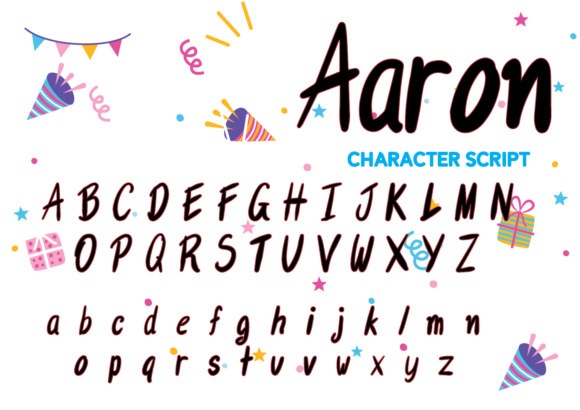
Aaron Font: Elevate Your Designs with Elegance and Charm
Are you looking for a font that exudes sophistication and style? Look no further than the Aaron Font, a stunning script font that is sure to elevate your designs to the highest level. With its classic calligraphy-inspired aesthetic, this font is perfect for designers and crafters who want to add a touch of elegance and charm to their projects.
A Font that Feels Equally Charming and Elegant
The Aaron Font is designed to feel equally charming and elegant, making it perfect for a wide range of design projects. Whether you’re working on branding, headings, wedding designs, invitations, signatures, logos, labels, or more, this font is sure to make a lasting impression. Its unique blend of classic and modern elements gives it a timeless feel that will never go out of style.
A Stylish Homage to Classic Calligraphy
The Aaron Font is a stylish homage to classic calligraphy, featuring a varying baseline, smooth lines, gorgeous glyphs, and stunning alternates. Its classic calligraphy-inspired aesthetic is perfect for designers who want to add a touch of sophistication and elegance to their designs. With its beautiful letterforms and flowing lines, this font is sure to add a touch of luxury to any project.
Key Features of the Aaron Font
The Aaron Font comes with a range of key features that make it perfect for designers and crafters. Some of its key features include:
- Varying Baseline: The Aaron Font features a varying baseline, which gives it a unique and organic feel.
- Smooth Lines: The font features smooth lines that are perfect for creating elegant and sophisticated designs.
- Gorgeous Glyphs: The font comes with a range of gorgeous glyphs that can be used to add a touch of elegance and charm to your designs.
- Stunning Alternates: The font features stunning alternates that can be used to add variety and interest to your designs.
Uses for the Aaron Font
The Aaron Font is perfect for a wide range of design projects, including:
- Branding: Use the Aaron Font to create elegant and sophisticated branding materials, such as logos and letterheads.
- Headings: The font is perfect for creating headings and titles that are sure to grab attention.
- Wedding Designs: The Aaron Font is perfect for creating beautiful wedding designs, such as invitations, programs, and place cards.
- Invitations: Use the font to create elegant and sophisticated invitations for any occasion.
- Signatures: The font is perfect for creating beautiful signatures that are sure to make a lasting impression.
- Logos: Use the Aaron Font to create elegant and sophisticated logos that are sure to elevate your brand.
- Labels: The font is perfect for creating beautiful labels that are sure to add a touch of elegance and charm to any product.
Why Choose the Aaron Font?
There are many reasons why you should choose the Aaron Font for your next design project. Here are just a few:
- Elegance and Charm: The Aaron Font exudes elegance and charm, making it perfect for designers who want to add a touch of sophistication to their designs.
- Versatility: The font is perfect for a wide range of design projects, from branding and headings to wedding designs and invitations.
- Timeless Appeal: The Aaron Font has a timeless appeal that will never go out of style, making it a great investment for any designer or crafter.
| Font Name | Aaron Font |
| Author | Atta Design |
In conclusion, the Aaron Font is a stunning script font that is sure to elevate your designs to the highest level. With its classic calligraphy-inspired aesthetic, varying baseline, smooth lines, gorgeous glyphs, and stunning alternates, this font is perfect for designers and crafters who want to add a touch of elegance and charm to their projects. Whether you’re working on branding, headings, wedding designs, invitations, signatures, logos, labels, or more, the Aaron Font is sure to make a lasting impression.